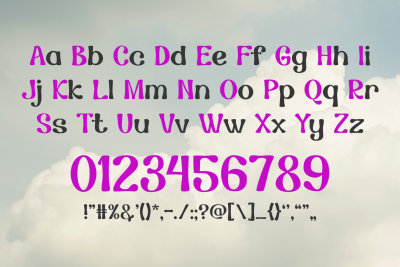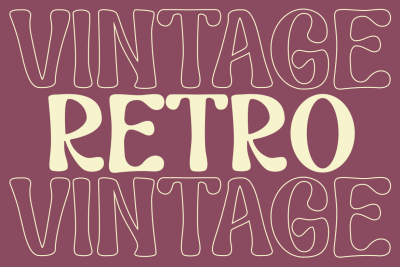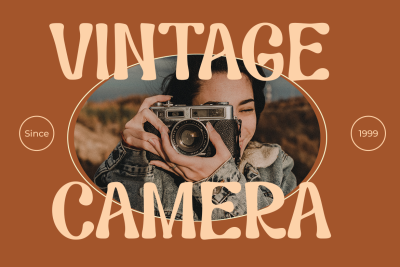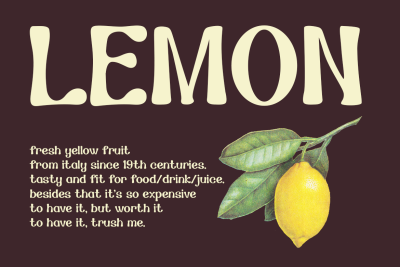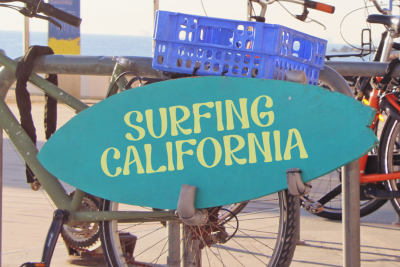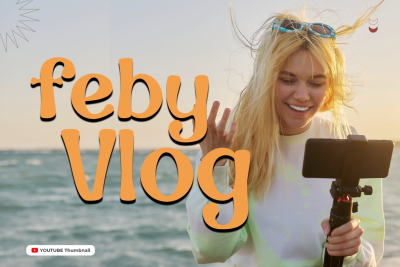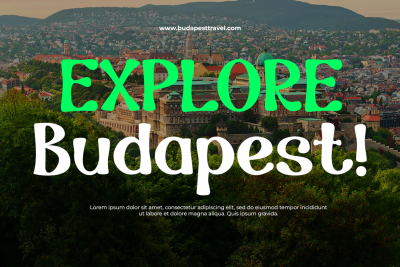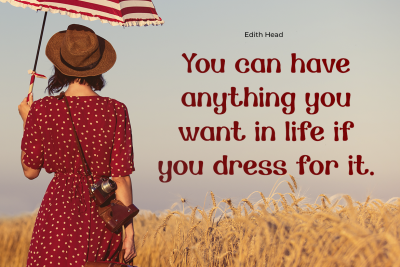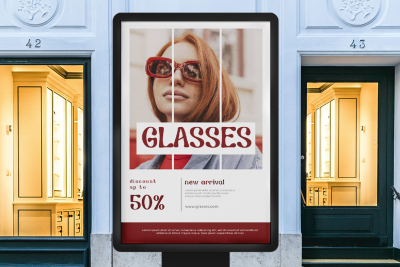
Vintage font Harold brings warmth and nostalgia into a typeface that feels approachable and timeless. Its soft, rounded edges and playful curves offer a unique blend of retro charm and modern versatility. Inspired by mid-century aesthetics, Harold works beautifully in various design contexts, from branding to packaging. The fontโs clean, balanced structure ensures excellent readability, whether used for headlines, body text, or both.
Harold excels in creating designs that evoke comfort, familiarity, and a personal touch. It enhances branding projects, adds character to editorial layouts, and lends a sense of nostalgia to packaging. Its simplicity allows it to harmonize effortlessly with other design elements, making it adaptable for themes ranging from vintage-inspired to contemporary. Whether you aim to highlight tradition or add a heartfelt element to your project, Harold delivers with style and elegance.
Harold also supports multilingual typography, making it an excellent choice for global projects. Its versatility ensures that it adapts seamlessly to different languages and cultural contexts without losing its charm. Designers can use Harold for digital projects such as website designs or app interfaces, ensuring a friendly and timeless visual experience. By combining style, adaptability, and readability, Harold continues to stand out as a reliable choice for both creative professionals and businesses.
Vintage Font Harold Ideal Users
Harold suits designers, businesses, and creatives looking to evoke nostalgia in their work. Artisan cafes, boutique shops, and small businesses use Harold to emphasize their connection to tradition and craftsmanship. This font elevates branding materials such as menus, logos, and business cards with its timeless yet approachable look.
Wedding invitation designers and stationery creators will appreciate Harold’s ability to convey charm and elegance. Content creators on platforms like Instagram or Pinterest can use the font to enhance retro-themed graphics that grab attention. Harold also shines in vintage-inspired packaging for products such as handmade or specialty goods. Its adaptability ensures it resonates with diverse audiences while adding a touch of sophistication. By choosing vintage font Harold, you create designs that feel both personal and visually striking.